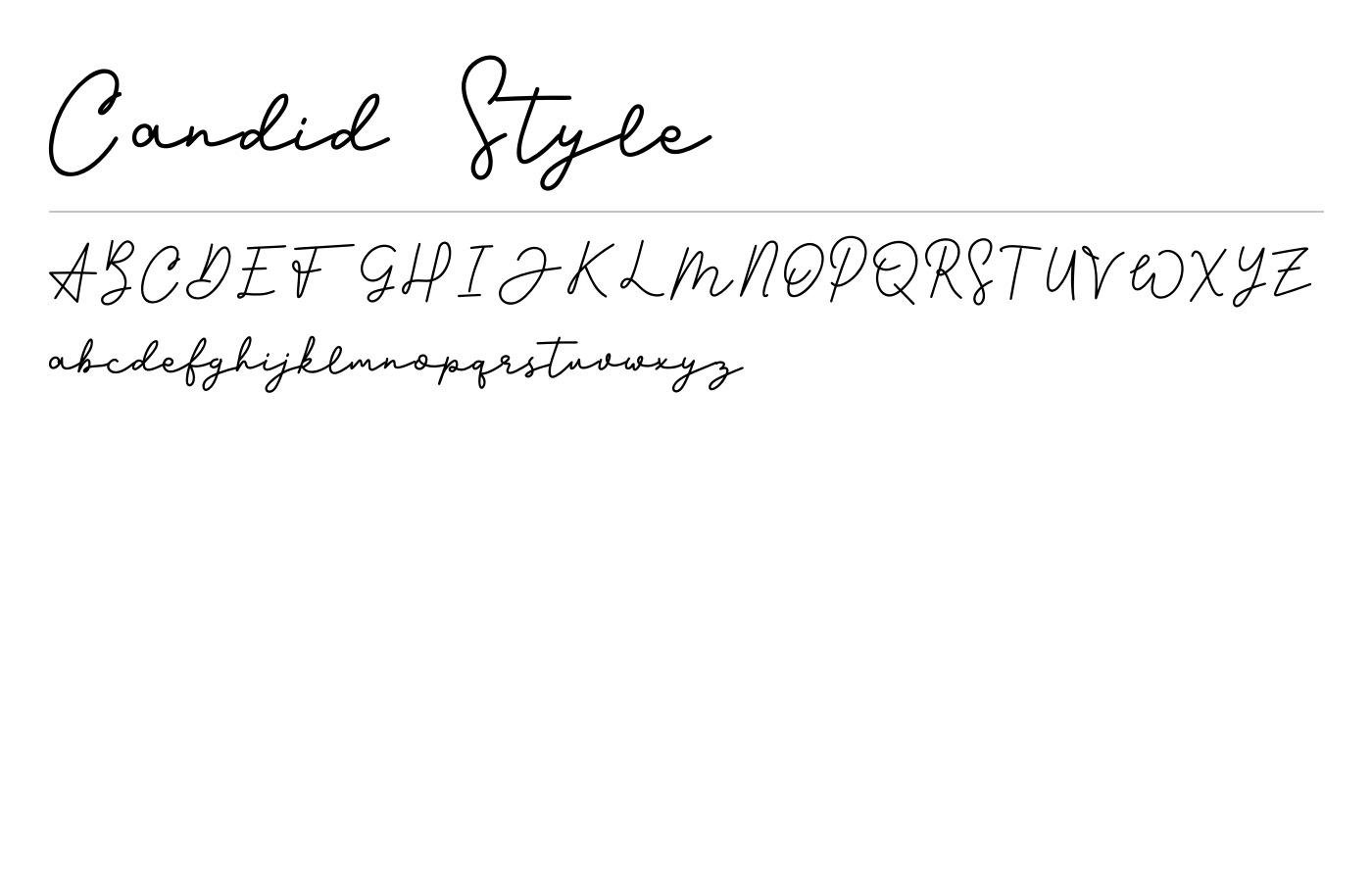
Candid Style is a delicate, handwritten script font with a light and airy feel that mimics natural cursive writing. Its thin, flowing lines and playful letterforms give it an elegant yet casual vibe, making it ideal for personal branding, invitations, and creative projects that want to convey warmth and authenticity. This font works well in designs where a friendly, approachable touch is desired without sacrificing sophistication.
Candid Style Font